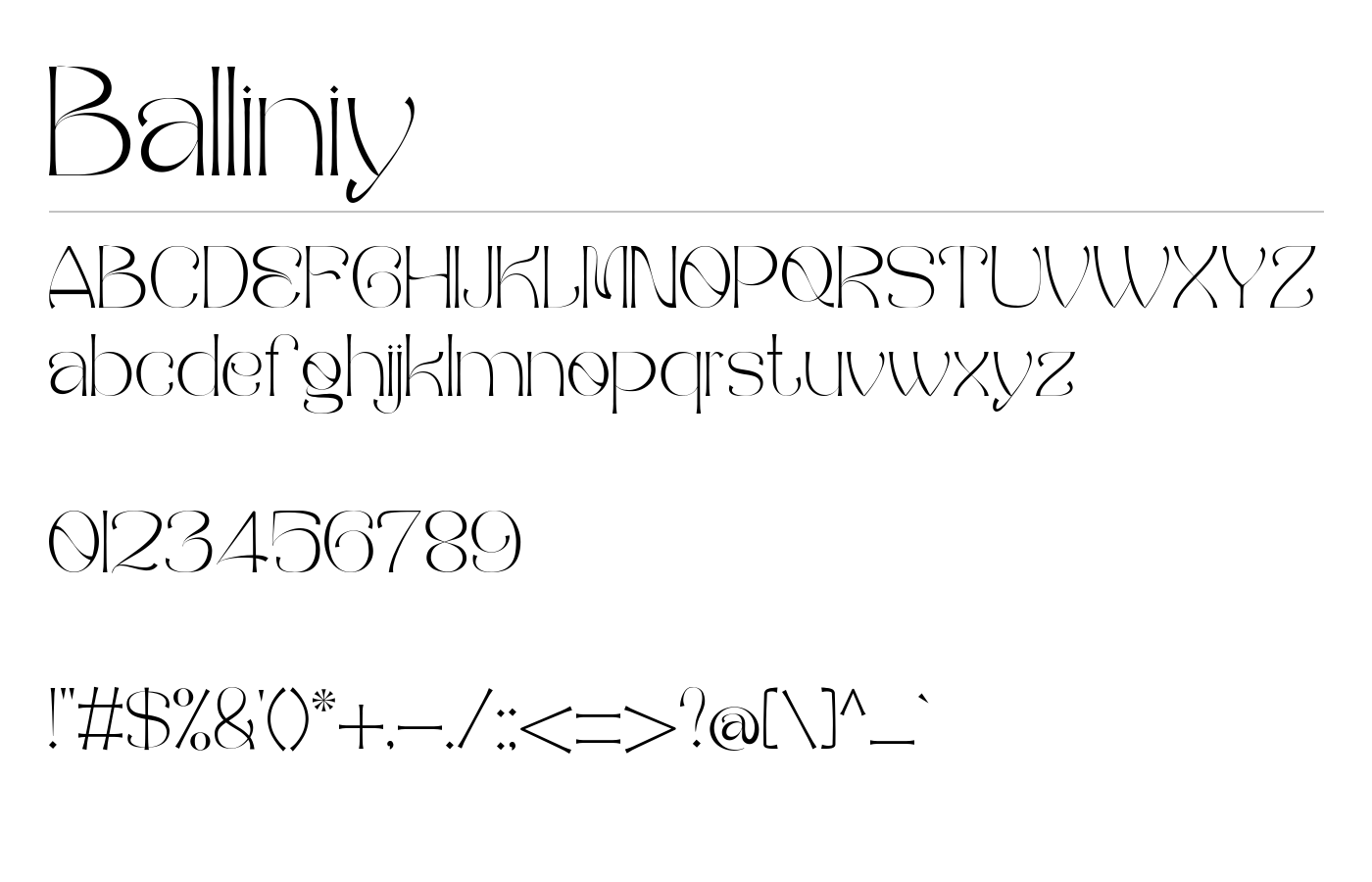
Balliniy is a delicate serif font characterized by its high contrast strokes and slender, elongated letterforms, blending elegance with a distinct artistic flair. Its refined details, such as the unique curved terminals and light, airy spacing, make it ideal for luxury branding, editorial headlines, and fashion-related design, where a sophisticated and modern aesthetic is desired. This font shines in settings that call for both style and readability, adding a graceful, contemporary touch to any project.
Balliniy Font
About Balliniy Font
| Font family | Balliniy Font |
| Designer | Muksal Craeative. 2021 |